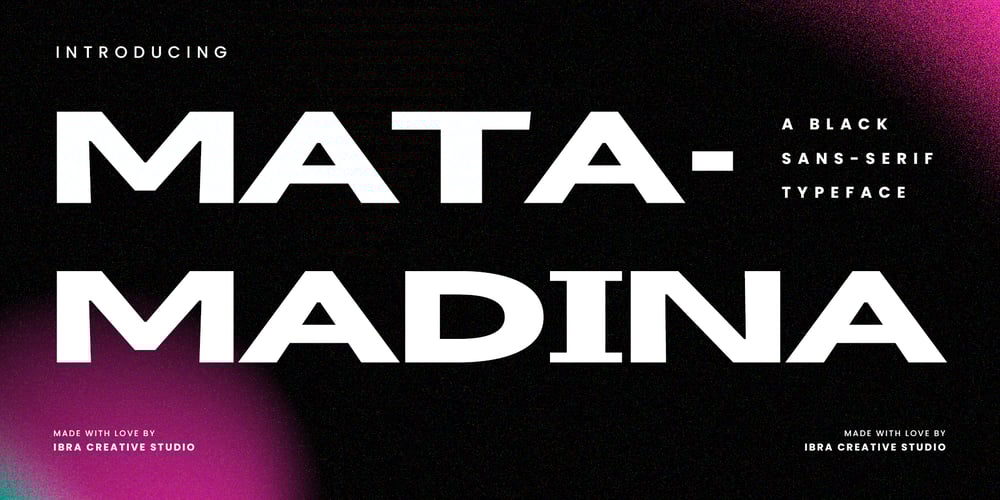
Matamadina Font Family was designed by Roisatul Azizah and published by IbraCreative. Matamadina contains 1 styles and family package options. Matamadina – A black sans-serif TypefaceMatamadina is a sleek and sophisticated black sans-serif typeface that effortlessly combines modern aesthetics with timeless simplicity. The characters exude a sense of boldness and clarity, with sharp edges and a uniform stroke width that enhance legibility. The deep black hue of Matamadina lends it a commanding presence, making it an ideal choice for conveying a sense of strength and professionalism in various design applications. The clean and minimalist design of this typeface ensures versatility, allowing it to seamlessly integrate into a wide range of contexts, from editorial layouts to branding materials, providing a contemporary and refined typographic solution.Matamadina is perfect for branding projects, logo, wedding designs, social media posts, advertisements, product packaging, product designs, label, photography, watermark, invitation, stationery, game, fashion and any projects.Fonts include multilingual support for; Afrikaans, Albanian, Czech, Danish, Dutch, English, Estonian, Finnish, French, German, Hungarian, Italian, Latvian, Lithuanian, Norwegian, Polish, Portuguese, Slovak, Slovenian, Spanish, Swedish.